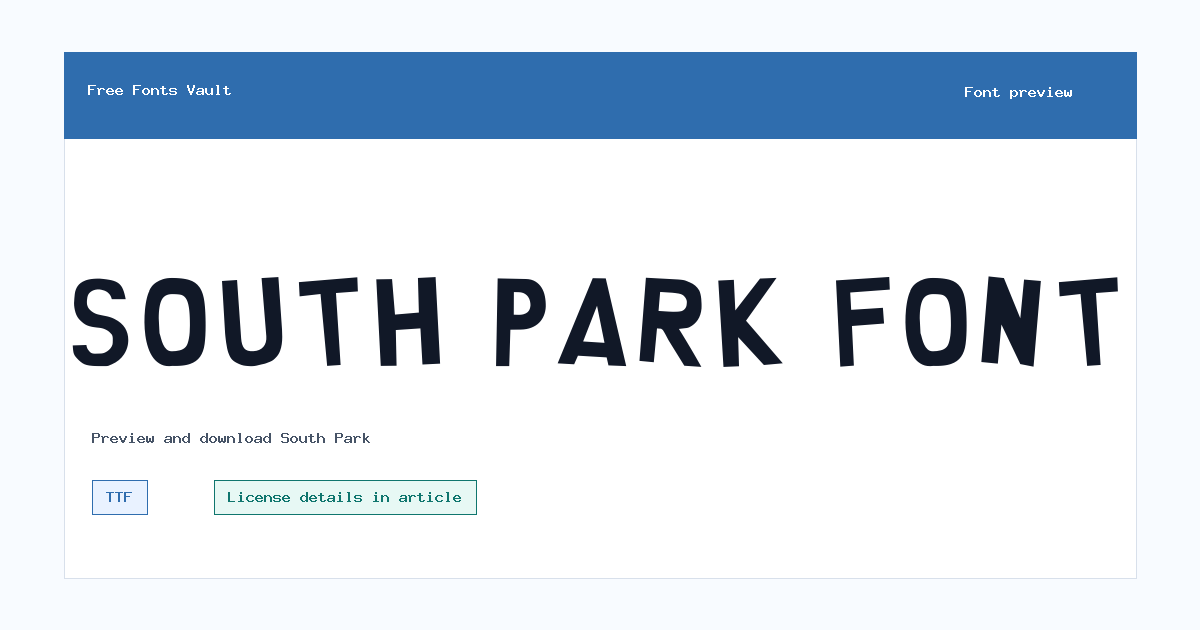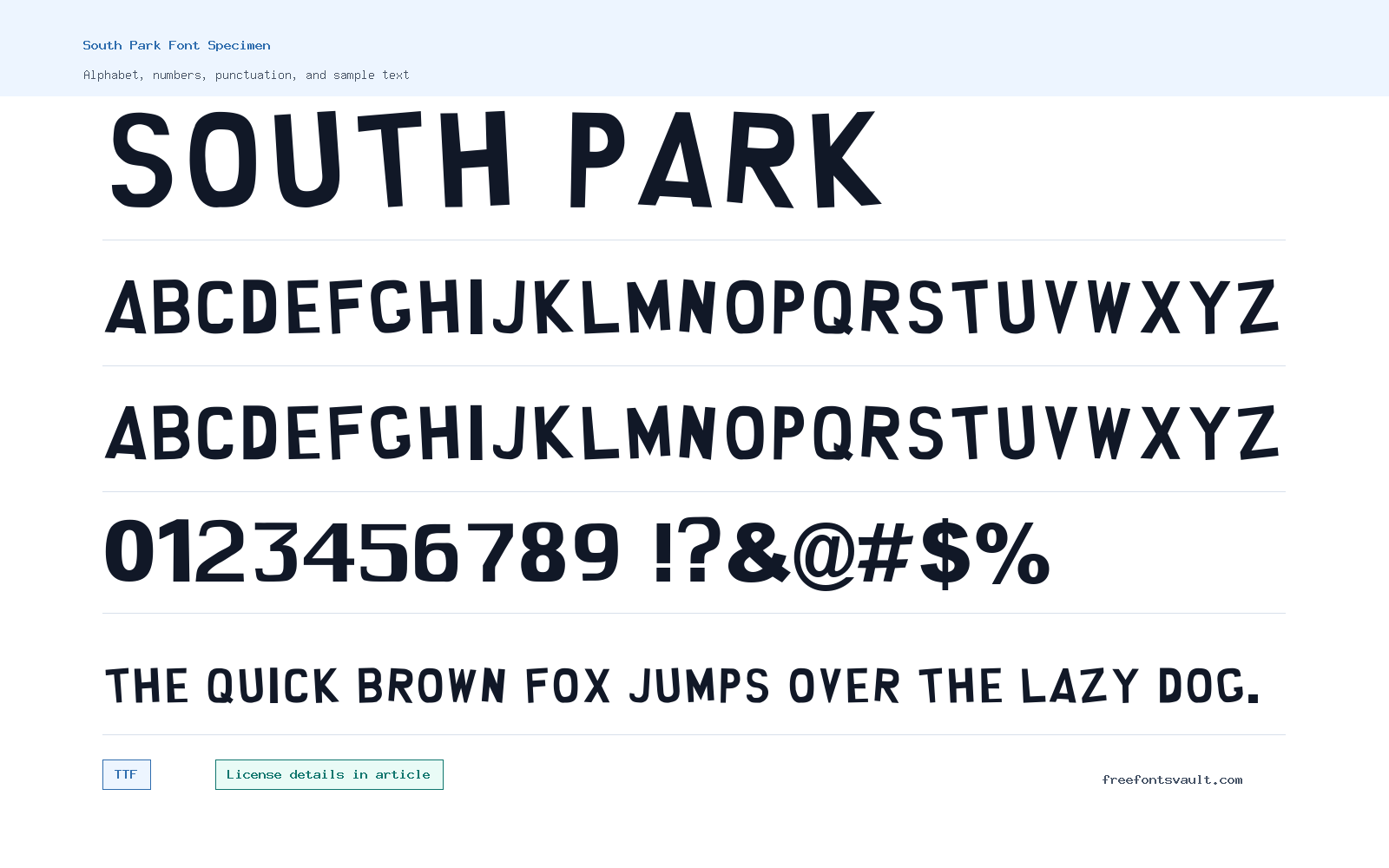
South Park
- Designer Comedy Central
South Park font.
South Park is a display font with a rough, cartoon-like feel made for short, bold text rather than long reading.
About South Park Font
The South Park font is offered as a regular TTF file with normal style and 400 weight. Its value is in quick visual recognition: blocky, casual lettering that works best when the words are large enough to show the uneven, hand-cut look. Use the preview box to test names, short titles, banners, or a few punchy words before downloading.
For personal creative work, test the font with the exact words you want to use and avoid overcrowding the layout. The rough display style is easier to read when it has enough size and contrast. If a phrase becomes hard to scan, shorten the text, increase spacing, or move supporting details into a cleaner companion font.
- Cartoon-style display lettering suited to short headings and large preview text
- Works best when the design needs a rough novelty title rather than clean body copy
- Personal fan art, parody-style graphics, and informal posters
- Short titles, stickers, party signs, thumbnails, and preview mockups
Use this font at larger sizes and keep the wording short. Test uppercase and lowercase combinations in the preview, check spacing between letters, and avoid using it for paragraphs or small interface text. If the design references a show, logo, character, or other protected property, confirm those rights separately before public use.
Is this font best for long text?
No. It is better for short display text such as titles, labels, posters, and novelty graphics. For long reading, pair it with a cleaner text font.
Is the South Park font official?